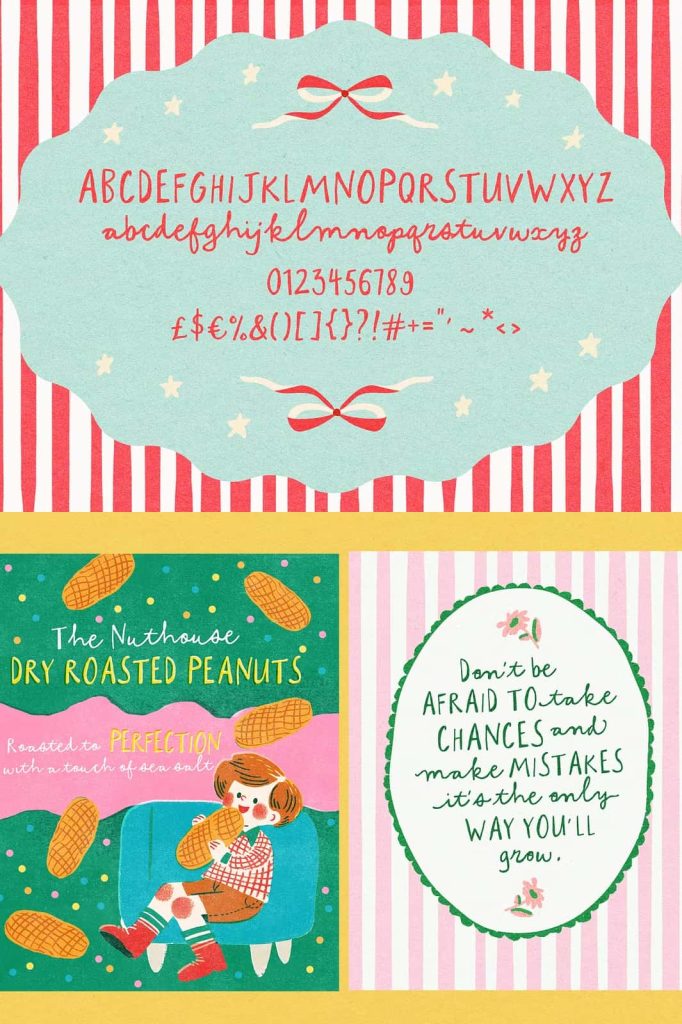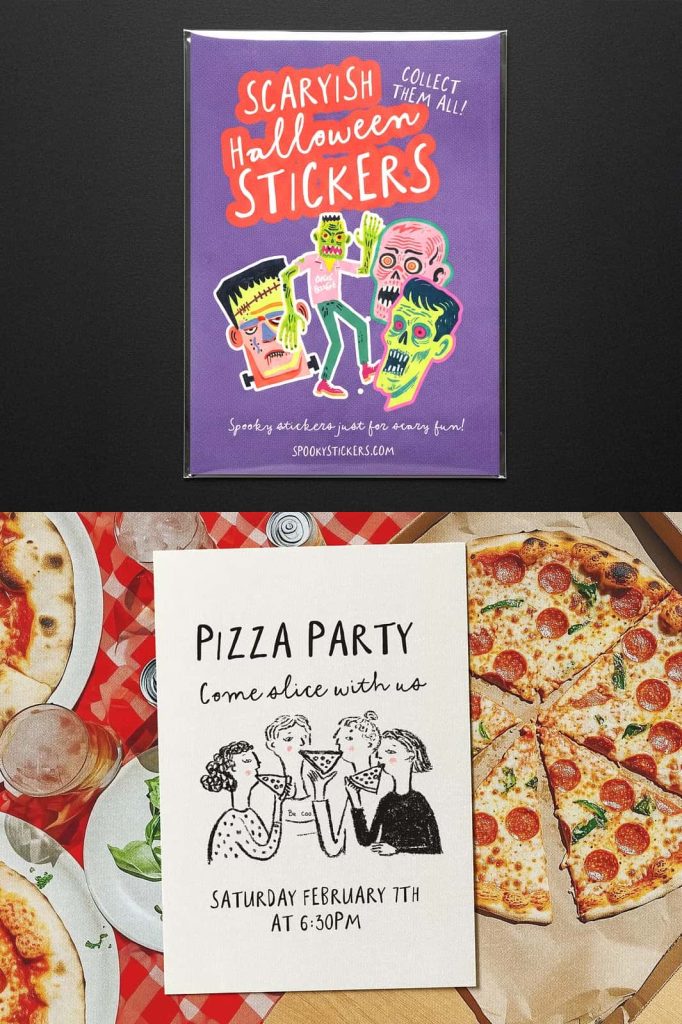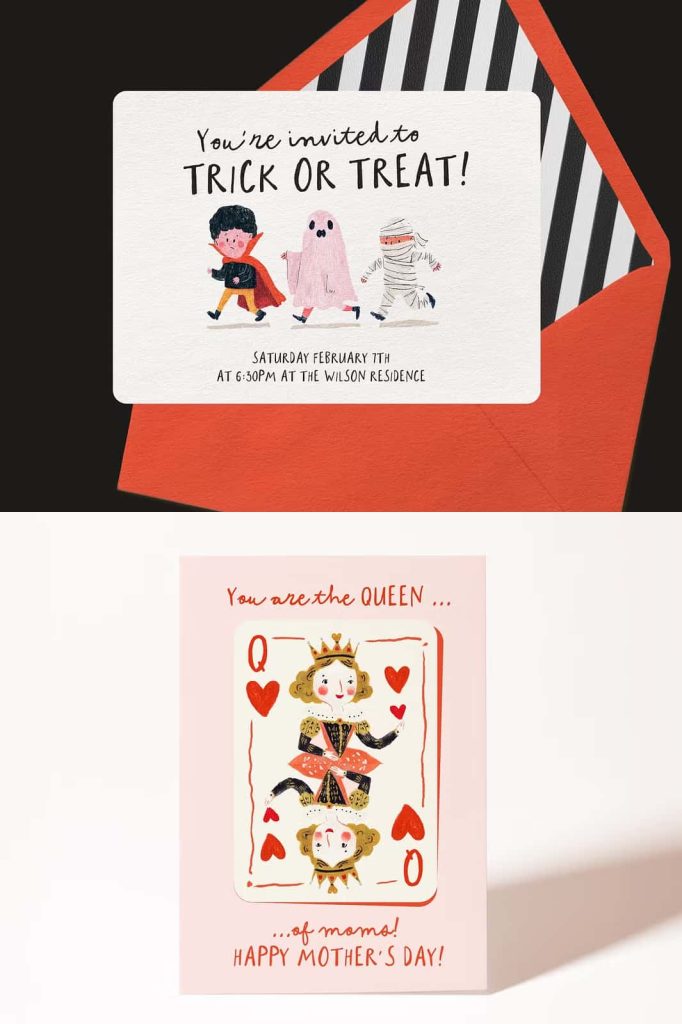
Everythings Peachy Font – A Cute Handwritten Script & All-Caps Font Duo
Everythings Peachy is a delightful handwritten font that combines the charm of a playful script with the versatility of an all-caps display font. Designed to function like a font duo within a single typeface, it allows you to effortlessly switch between two complementary styles simply by using uppercase or lowercase letters. This clever design gives creators greater flexibility while maintaining a cohesive and consistent visual identity.
Whether you’re creating greeting cards, product packaging, invitations, branding, social media graphics, or whimsical illustrations, Everythings Peachy brings warmth, personality, and handcrafted character to every design. Its relaxed handwritten appearance instantly creates an approachable and cheerful atmosphere that feels genuine, creative, and full of life.
The combination of casual script lettering and playful capital letters makes this font an excellent choice for projects that require friendly typography with plenty of personality. From small creative businesses to professional designers, Everythings Peachy provides a versatile solution for modern handmade-inspired design.
A Unique Font Duo in One Typeface
One of the most appealing features of Everythings Peachy is its innovative dual-style concept. Instead of installing two separate fonts, you can access both styles directly within the same typeface. Simply type using uppercase letters to achieve a clean all-caps handwritten look, or switch to lowercase letters for a smooth flowing script style.
This seamless transition between styles makes designing faster and more enjoyable. You can easily combine uppercase and lowercase lettering to create attractive typography that naturally emphasizes key words while adding depth and visual interest to your layouts.
The result is a flexible design tool that encourages creativity without adding unnecessary complexity to your workflow.
Handwritten Style with Warm Personality
Everythings Peachy embraces the beauty of authentic handwritten lettering. Rather than appearing perfectly mechanical, each character reflects the natural rhythm and subtle imperfections that give handwritten typography its distinctive charm.
The script style flows effortlessly across words, creating a relaxed and welcoming appearance that feels personal and expressive. Meanwhile, the uppercase style delivers bold handwritten characters that work beautifully for headlines, titles, logos, and product names.
This balance between casual elegance and playful simplicity allows the font to adapt naturally across a wide variety of creative projects while maintaining its unique handcrafted identity.
Perfect for Creative and Whimsical Designs
If your project calls for typography that feels cheerful, inviting, and full of personality, Everythings Peachy is an outstanding choice. Its friendly appearance makes it especially suitable for brands and products that celebrate creativity, happiness, and handcrafted quality.
The font works beautifully across children’s products, handmade crafts, artisan goods, stationery collections, gift shops, cafés, bakeries, lifestyle brands, and boutique businesses. It instantly adds warmth and authenticity to any visual identity while remaining highly readable and versatile.
Whether you’re designing for print or digital media, Everythings Peachy creates an emotional connection that helps your message feel more personal and memorable.
Ideal Applications Include:
- Greeting cards
- Wedding invitations
- Birthday invitations
- Baby shower stationery
- Gift tags
- Cute product packaging
- Handmade product labels
- Logo design
- Brand identity
- Illustration projects
- Printable wall art
- Children’s books
- Scrapbooking
- Website headers
- Creative marketing materials
Create Friendly Branding with Ease
Typography often shapes the first impression of a brand, and Everythings Peachy helps create an image that feels approachable, cheerful, and authentic. Its handwritten style naturally communicates friendliness, making it ideal for businesses that value creativity and personal connection.
The all-caps style provides bold emphasis for logos, headlines, and product names, while the script style softens the overall composition with natural movement and expressive character. Together, they create balanced branding that feels polished without losing its handmade appeal.
This versatility allows designers to build complete visual identities using a single font family while maintaining consistency across every touchpoint.
Excellent for Print and Digital Projects
Everythings Peachy performs beautifully across both printed and digital media. The handcrafted letterforms remain clear on product packaging, greeting cards, posters, brochures, and labels while displaying equally well on websites, online stores, blogs, and social media platforms.
If you’re searching for a font that combines charm, creativity, and everyday usability, Everythings Peachy is a wonderful addition to your typography collection. Its handcrafted warmth, flexible dual-style design, and timeless appeal ensure your creative projects stand out with authenticity, personality, and lasting visual impact.